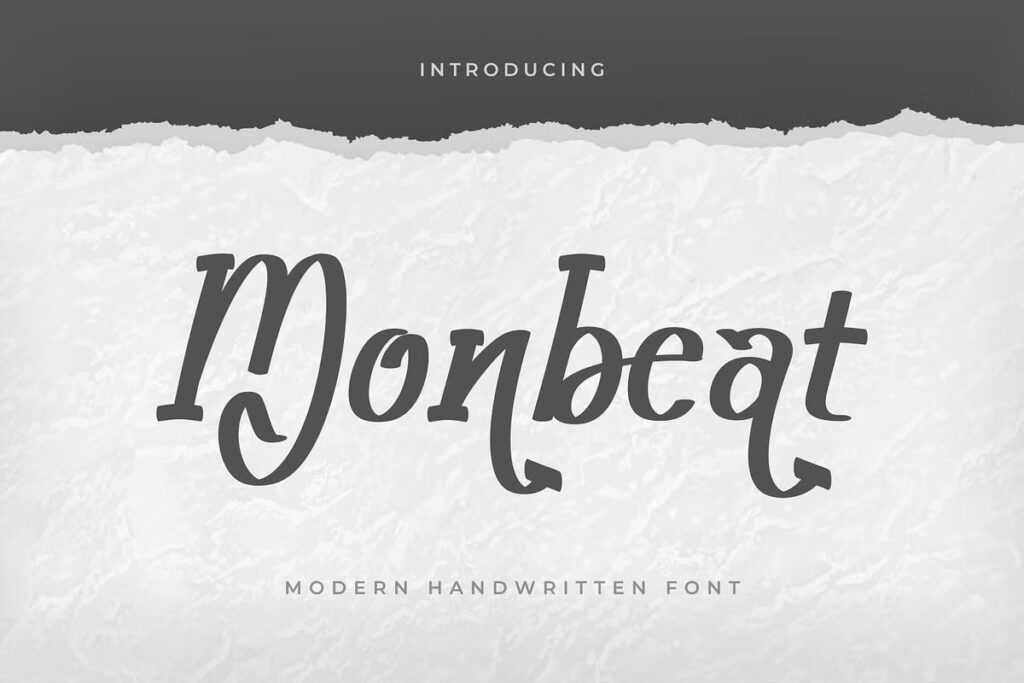
- Ligatures and alternate characters.
- Support for 65 languages.
- PUA-encoded alternates, so you can reach the extra characters without professional design software.
How Rishsketch Studios describes Monbeat
The designer pitches Monbeat as a premium script for projects that need a distinctive, high-end feel, with branding, social media and upscale design work named as the main uses. The two styles give you an upright Regular and a slanted Italic, which is less common in handwritten scripts and lets you vary emphasis without switching fonts.
We have not examined the font files, so we will not describe individual letters. The listing’s preview images and live text box are the best way to judge the capitals, the connections between letters and how the ligatures look with your own wording.
Script fonts often hide their best characters behind OpenType features that Canva, Cricut Design Space and Word handle poorly. Monbeat’s listing says its extra characters are PUA-encoded. PUA stands for Private Use Area, a block of Unicode code points where designers can place alternates so that each one behaves like a normal character you can copy and paste.
Where Monbeat fits, and what to set beside it
Following the designer’s list, Monbeat makes sense for a boutique logo, a product label, a salon or bakery sign, Instagram quote graphics and event invitations. Use it for names, short headlines and signatures. Long passages in any handwritten script are tiring to read.
Partner fonts that keep a premium tone:
- Playfair Display, a high-contrast serif, for a fashion or beauty brand.
- Montserrat in uppercase with wide letter spacing, for clean taglines under the script.
- Raleway for website body text and menus.
Does Monbeat have an italic?